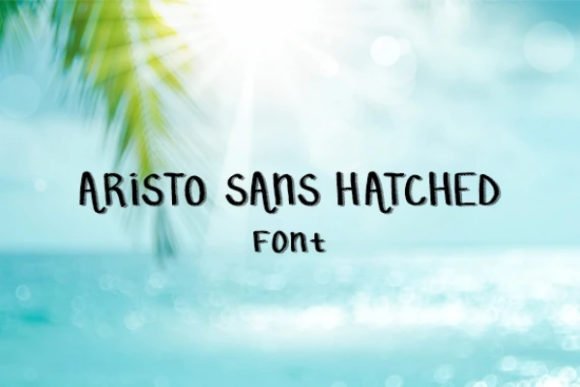
The Perfect Font for Your Next Design Project
Have you ever stared at a blank page, waiting for the perfect font to come to you? The moment when all the elements fall into place, and your design starts to take shape. That’s exactly what Aristo Hatched Font is designed to do – bring your creative vision to life.
Aristo Hatched Font is a modern sans serif font that offers a perfectly balanced mix of smooth and sharp lines. Whether you’re working on a logo, brochure, or website, this versatile font will complement any design need. With its clean and elegant design, Aristo Hatched Font is the perfect addition to your design toolkit.
For designers, finding the right font can be a game-changer. It’s not just about aesthetics; it’s about conveying your message effectively. Aristo Hatched Font is a valuable asset for any designer looking to elevate their designs and leave a lasting impression.
Aristo Hatched Font Key Features
- Font Family: Aristo Hatched, a unique, hand-drawn font with a hatched texture effect.
- Character Count: Includes 250+ glyphs, covering Latin, Cyrillic, and Greek alphabets, as well as various punctuation and special characters.
- Unique Characteristics: Distinctive hatched texture effect, creating a tactile, hand-crafted look and feel.
Aristo Hatched Font Review
Overall, I think the Aristo Hatched Font is a great addition to any design project. Here’s what I like about it: ✨
- Unique design: The hatched texture gives the font a distinctive, eye-catching look that’s perfect for creating visual interest in your designs.
- Highly customizable: The font is available in various weights and styles, allowing you to tailor it to your specific needs.
- Limited legibility: In certain situations, the hatched texture can make the font difficult to read, especially at smaller font sizes.
- Not suitable for small text: Due to the texture, the font may not be the best choice for small text or headlines where legibility is crucial.
Overall, I think the Aristo Hatched Font is a great choice for designers looking to add some visual interest to their projects. While it may have some limitations, its unique design and high level of customizability make it a valuable addition to any design library.
Tips for Getting the Most Out of Aristo Hatched Font
For optimal results, use Aristo Hatched Font for titles, headings, and other emphasis text. Avoid using it for large blocks of text, as it may become difficult to read. Experiment with different font sizes and colors to create visually appealing designs.
Aristo Hatched Font is ideal for:
– Fashion and beauty branding
– Artistic and creative projects
– Luxury and high-end designs
– Any project requiring a unique, handcrafted look